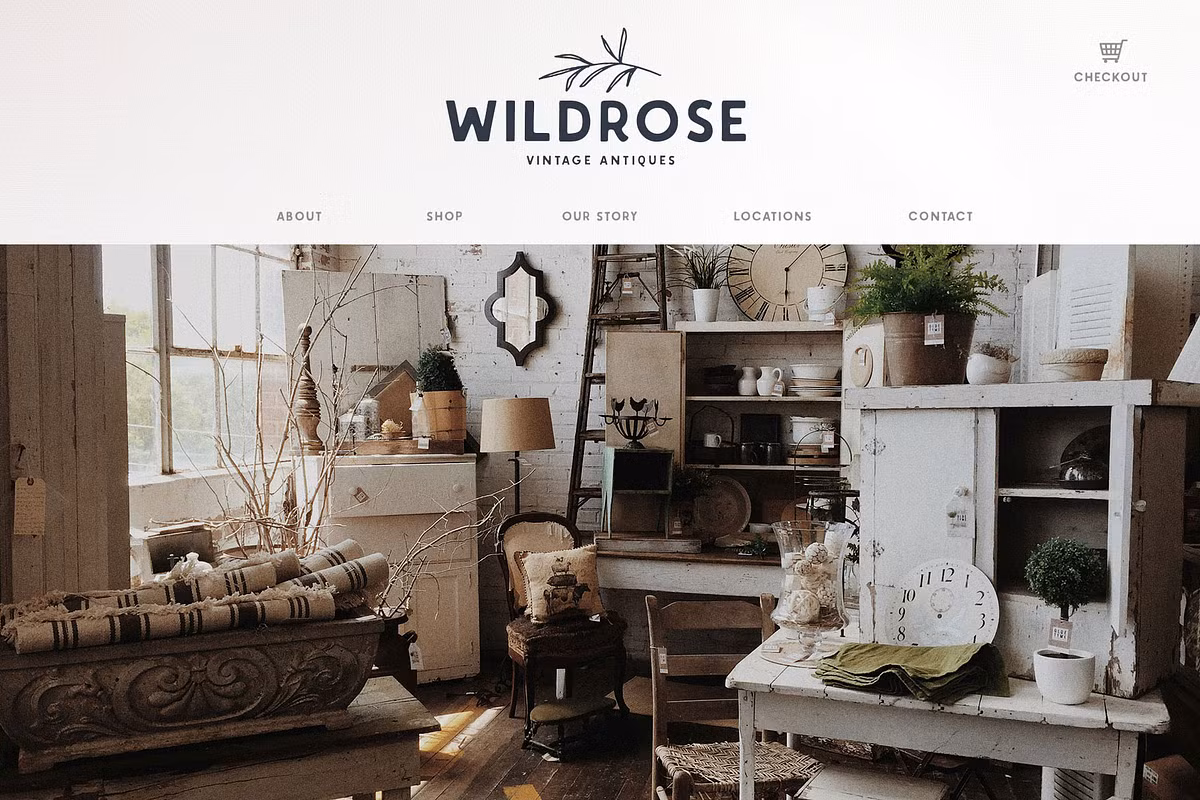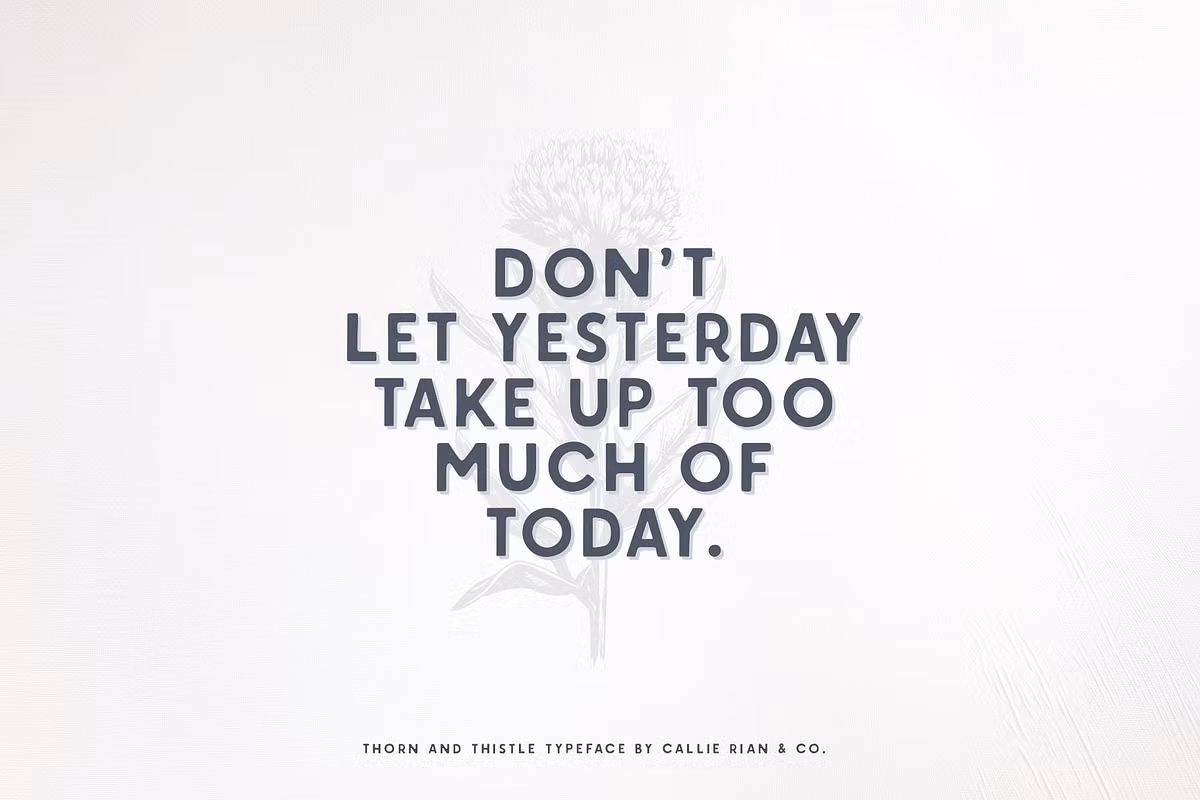
Thorn & Thistle Sans Family
Thorn & Thistle Sans Family: Hand-Drawn Sans Serif Font Collection
Introduction to Thorn & Thistle Sans Family
The Thorn & Thistle Sans Family is a really nice set of hand-drawn fonts that can add a special something to your designs. It’s got these subtle, inked corners that make the letters look like they were written by hand, which is great for things like magazines, logos, and more. There are three different versions to choose from – Regular, Rustic, and Shadowed – so you can pick the one that fits your project best and gives it a unique touch. This font collection is all about being versatile and charming, and it can really make your designs stand out. Whether you’re working on a big project or just something small, The Thorn & Thistle Sans Family is a great choice to add some personality to your work.
A preview of the Thorn & Thistle Sans fonts.
Design Style of Thorn & Thistle
Thorn & Thistle has a unique look that’s handmade, which makes it stand out from other plain fonts. The little ink marks on the corners make it look special, like it was made just for you. This style is perfect for creative work where you want to add some personality. It’s great for projects that need a personal touch, and the handmade feel really makes it shine. The subtle details in the design give it a lot of character, and it’s easy to see why it’s a popular choice for designers who want to add some flair to their work. Overall, Thorn & Thistle is a great choice when you want a font that’s a little different and has a lot of personality.
Thorn & Thistle has different versions, each with its own style. The Regular one is simple and modern, great for basic uses. Then there’s the Rustic version, which has a rougher feel to it, making it perfect for outdoor or handmade brands. And finally, there’s the Shadowed version, which adds some depth and makes it stand out, ideal for grabbing attention with headlines or logos.
Character sets in the Thorn & Thistle font family.
Thorn & Thistle is great because it has a lot of characters to choose from. It also supports languages like Spanish, French, and German, which is really useful for projects that need to be in multiple languages. This means designers can make things that lots of people can understand, without giving up on making it look good.
The Thorn & Thistle Sans Family is really versatile, which means it can be used in lots of different situations and still look great. Let’s take a look at some of the most popular ways to use it.
• Magazines: Magazines really benefit from the stylish look of Thorn & Thistle – it’s great for headings and the main text, giving a fresh and timeless feel that readers love.
• Logos: Whether you’re crafting a logo for a startup or a personal brand, the Thorn & Thistle font family can provide the unique identity your brand needs.
• Packaging: The Rustic version, in particular, can enhance product packaging, giving it an artisanal and handcrafted appearance that attracts consumers.
• Quotes: Use Thorn & Thistle to create visually striking quote graphics for social media or print, capturing attention with its distinctive style.
When you’re working on a design project and you decide to use Thorn & Thistle, think about combining it with some other fonts to really make your work stand out. Here are a few ideas for font pairs that go well together.
Font pairing suggestions for Thorn & Thistle
Font pairing suggestions for Thorn & Thistle Sans Family.
• Thorn & Thistle Regular with a Serif Font: Pairing the Regular version with a classic serif font can create a beautiful contrast, making your text stand out while retaining readability.
• Thorn & Thistle Rustic with a Handwritten Script: Combining the Rustic version with a flowing handwritten script can evoke a warm, inviting vibe, perfect for personal or creative projects.
• Thorn & Thistle Shadowed with a Bold Display Font: Using the Shadowed variant alongside a bold display font can create dramatic headlines that draw attention and engage viewers.
The Thorn & Thistle Sans Family is so much more than just a bunch of fonts – it’s like a super cool design tool that can really make your projects stand out. I mean, it’s got this awesome hand-drawn feel to it, and it comes in a few different versions, like Regular, Rustic, and Shadowed, so you can pick the one that fits your style. And the best part is, it’s got a ton of characters, so you can use it for all sorts of things. Whether you’re a designer looking to add a little something extra to your work, or just someone who loves playing around with fonts, Thorn & Thistle is definitely worth checking out. So why not head on over to callierian.com and see what all the fuss is about? And as a special treat, you can even get 20% off your purchase if you use the code HELLO20 at checkout – pretty sweet, right? Happy designing, and don’t forget to have fun with it!